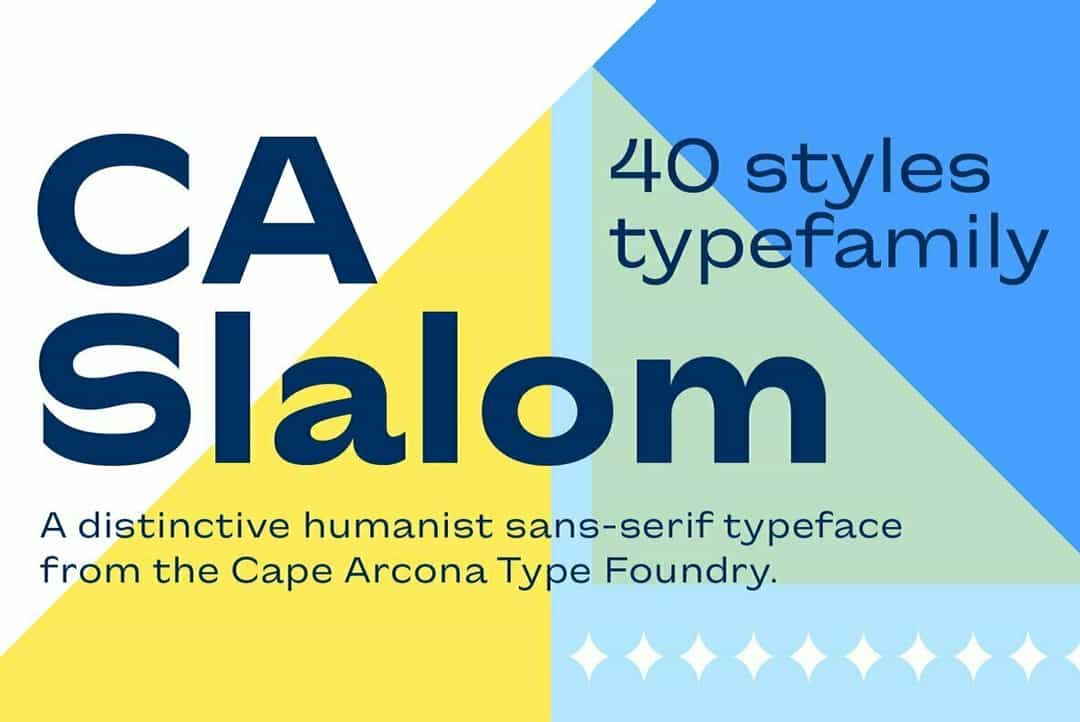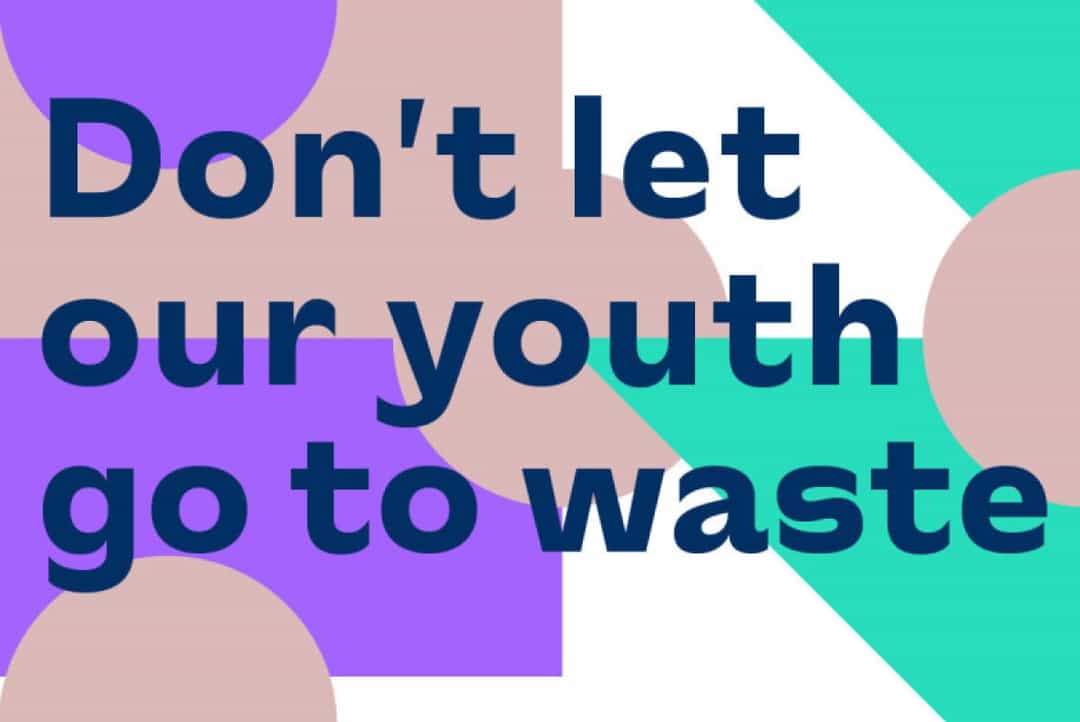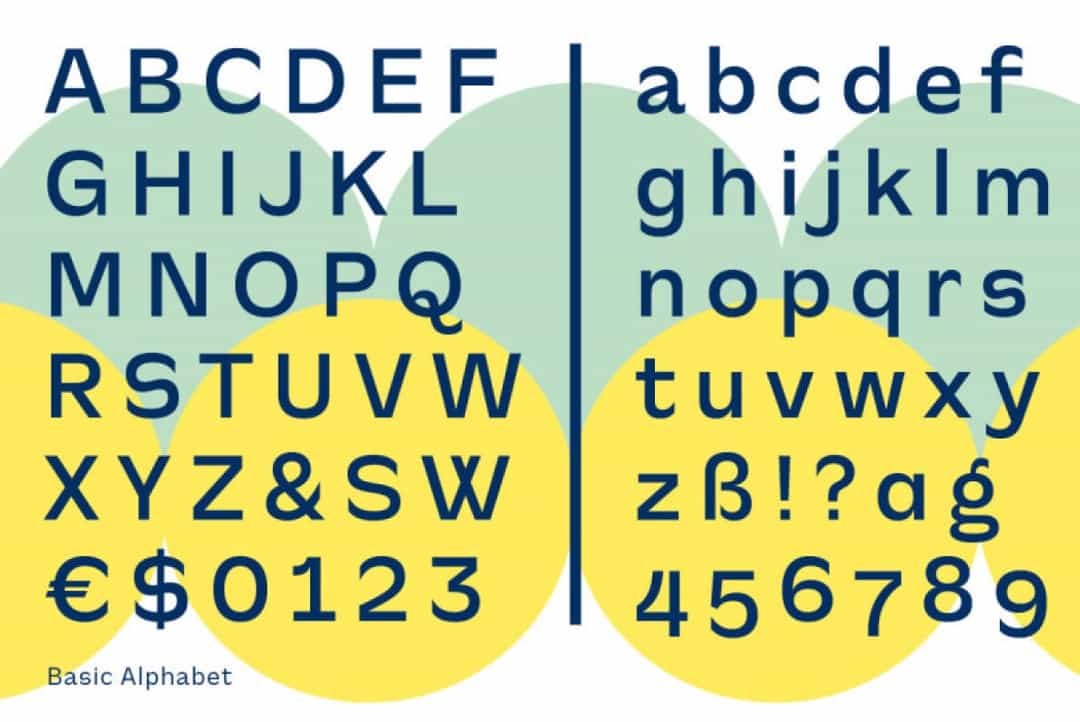
CA Slalom Sans Serif Font Family was designed as an attempt to modernise classic fonts such as Gill or Antique Olive in terms of practicality, aesthetics and flexibility. It quickly established itself as an eye-catcher due to its distinctive S. From its bold extended size CA Slalom has grown into a massive family with four sizes available for download.